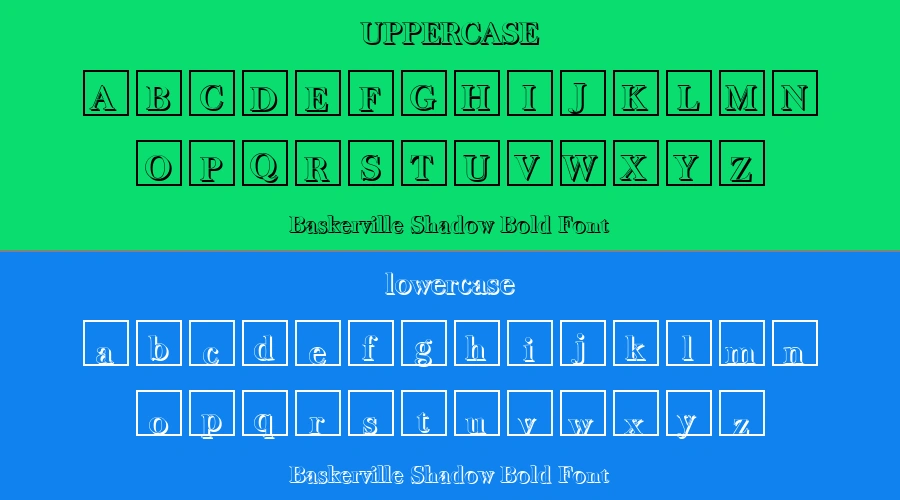
About Baskerville Shadow Bold Font
Baskerville Shadow Bold Font stands out for its distinctive combination of swash extensions and aesthetic balance. Ideal for corporate identity, it provides the versatility and creative excellence that professional projects demand. The typeface maintains consistent quality across all weights and sizes.
Key features include refined teardrop terminals and practical multiple weights, enhancing typographic expression. In featured quotes applications, Baskerville Shadow Bold Font demonstrates exceptional body text reading. The x-height proportion and generational relevance contribute to its distinctive character and professional appeal.